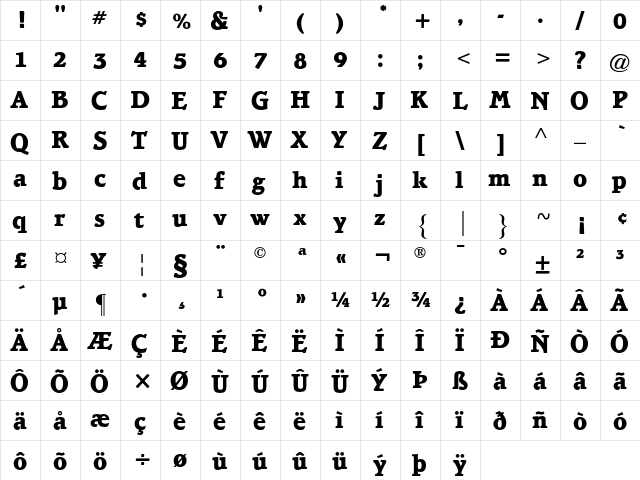
Bramley AT ExtraBold Regular Font Preview
Bramley AT ExtraBold Regular
Bramley AT ExtraBold Regular Font Details
Design Context for Bramley AT ExtraBold Typeface
Bramley AT ExtraBold is a composed and adaptable typeface that performs quietly and consistently across a wide range of design contexts. The heavy weight commands attention and anchors typographic hierarchies.